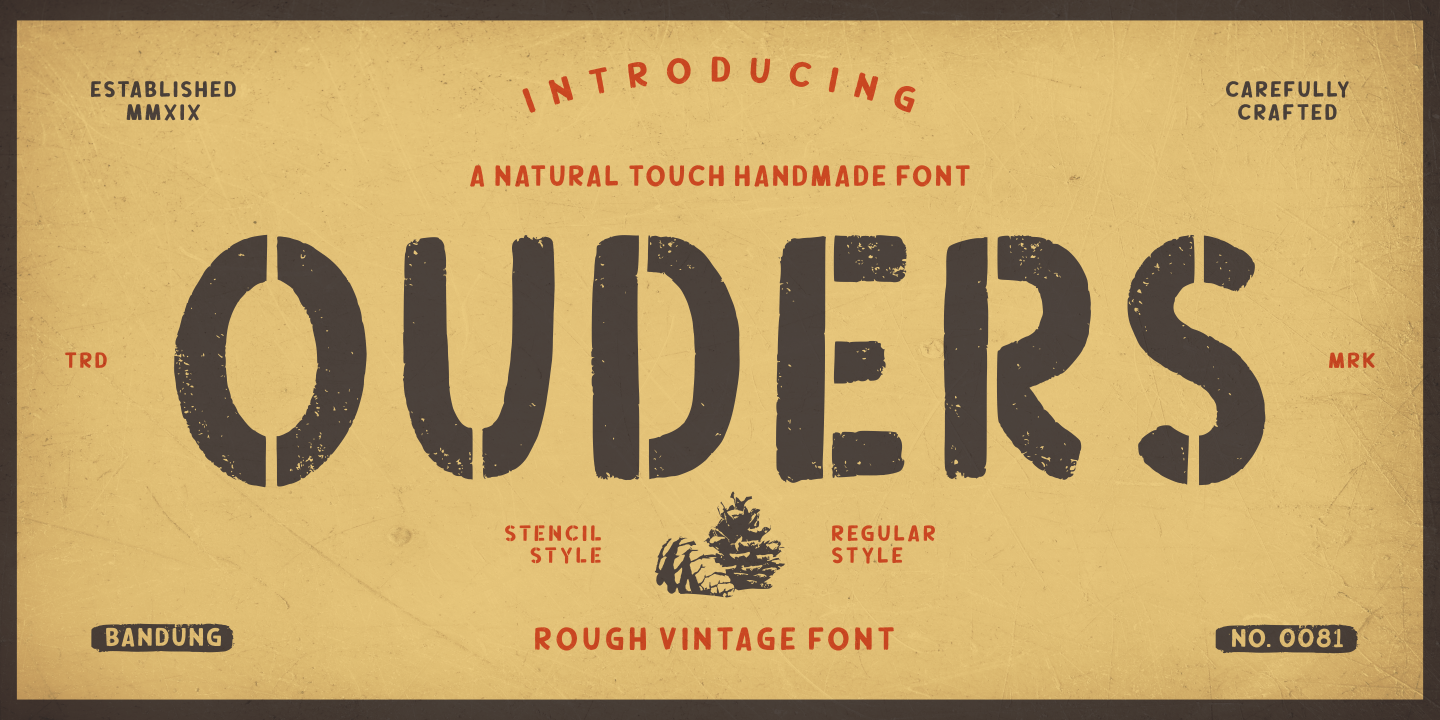
Ouders Font demonstrates remarkable versatility across numerous design applications including brand identity systems, editorial design, web interfaces, mobile applications, advertising campaigns, packaging solutions, signage projects, and corporate communications. Its adaptable nature ensures consistent visual impact whether used in digital platforms or traditional print media, making it an essential tool for modern design workflows.
What makes Ouders Font truly exciting is its sophisticated approach to modern typography that seamlessly blends innovation with practicality. The font features meticulously designed letterforms that maintain exceptional clarity across all sizes and applications. Its unique character construction creates distinctive visual personality while preserving professional credibility, making it perfect for brands seeking to establish strong market presence. The font's optimized kerning and spacing deliver superior readability, ensuring your message communicates effectively across diverse audience segments and platform requirements.
Ouders Font offers a comprehensive type family designed to meet extensive design demands. The family typically includes regular, medium, bold, and black weights, along with corresponding italic styles that provide complete flexibility for complex typographic hierarchies. Many versions feature extended character sets supporting multiple languages and special glyphs, making it suitable for international projects and specialized applications requiring comprehensive character coverage.
The Ouders Font Free Download represents outstanding value for creative professionals working across multiple industries and project types. Whether developing sophisticated brand systems, creating engaging digital experiences, or producing compelling print materials, this font delivers consistent excellence and visual distinction. Its professional characteristics make it particularly effective for sectors including technology, healthcare, education, and professional services. The font's contemporary appeal aligns with current design standards while incorporating timeless elements that ensure lasting relevance.
For maximum impact, Ouders Font pairs beautifully with both serif and sans-serif supporting fonts, creating dynamic typographic combinations that enhance overall design effectiveness. Its strong character presence excels in headline applications while maintaining excellent performance in extended reading contexts. The font's technical precision and aesthetic sophistication make it an invaluable resource for designers seeking reliable, versatile typography solutions that elevate their creative output.